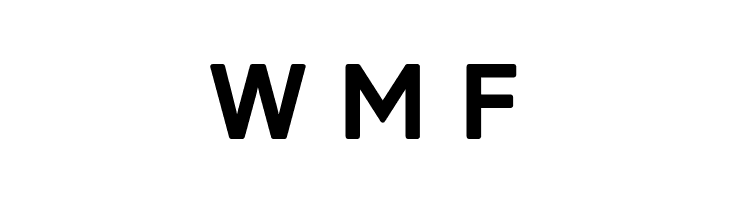
Aldo SemiBold Font
A modern, geometric font with clean lines and rounded edges.
Coalition Font
A bold, distressed font with a modern, industrial aesthetic.
Reitam Font
A clean, modern sans-serif font with uniform stroke width and balanced spacing.
Universal Accreditation Font
A tall, narrow font with clean lines and a modern, elegant style.
Shredded Font
A bold, rugged font with a distressed, shredded appearance.
Techno Hideo Font
A bold, futuristic font with sharp angles and geometric shapes.
Steel Tongs Esp Font
A bold, condensed font with a modern, authoritative style.
Unrealised Font
A bold, geometric font with high contrast and minimal spacing.
DriftType Font
A bold, hand-drawn font with a playful, textured design.
PROMESH Regular Font
A bold, athletic font with a vintage sports jersey style.
Fenix BlackletterCaps Font
A bold, geometric font with sharp angles and uniform thickness.
Kyooshi Gothic Font
Das Reicht Gut Regular Font
A modern, geometric font with rounded edges and consistent stroke width.
Fenix BlackletterCaps Italic Font
Bold, italicized font with a modern, angular design.
TokayOSeven Font
A playful, decorative font with unique, whimsical designs in each character.
Mordred Font
A medieval-inspired font with sharp, angular lines and whimsical curves.
PhatBoySlim-Bold Font
A bold, modern font with geometric precision and a futuristic flair.
InvisibleKiller Font
A bold, gradient-effect font with a geometric, blocky style.
Hunter Squared Font
A bold, geometric font with squared edges and a modern, industrial feel.
Reisenberg Font